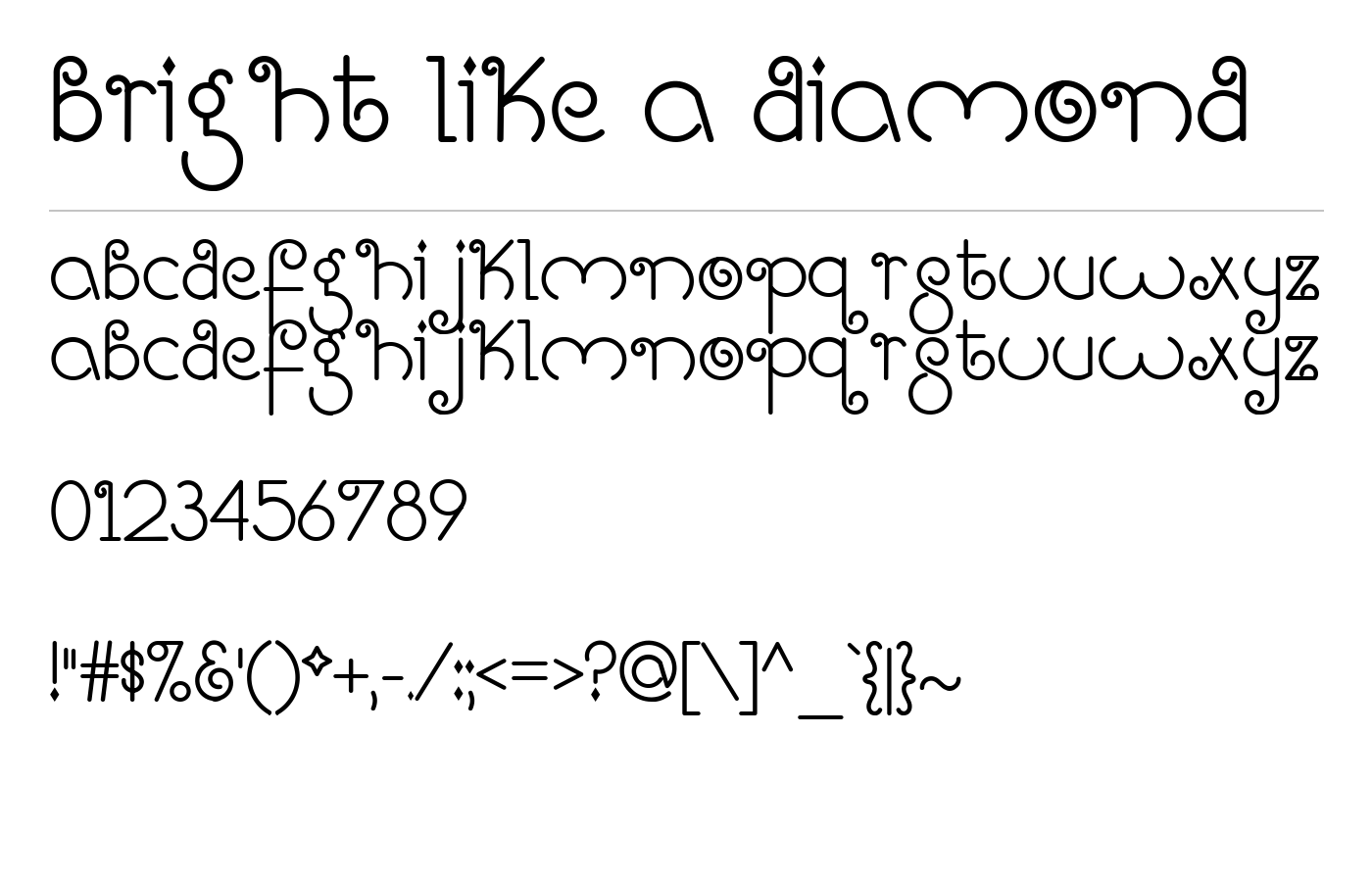
Bright Like A Diamond is a whimsical, decorative sans serif font with playful swirls and diamond-shaped accents that give it a unique, artistic flair. Its thin strokes and tall, narrow letterforms create an airy feel perfect for creative branding, invitations, or eye-catching headlines that seek a distinctive and charming personality. This font works best where a light, imaginative touch is desired, making it ideal for fashion, art, or boutique projects.
Bright Like A Diamond Font
| Designer | Misti's Fonts (Misti Hammers) |